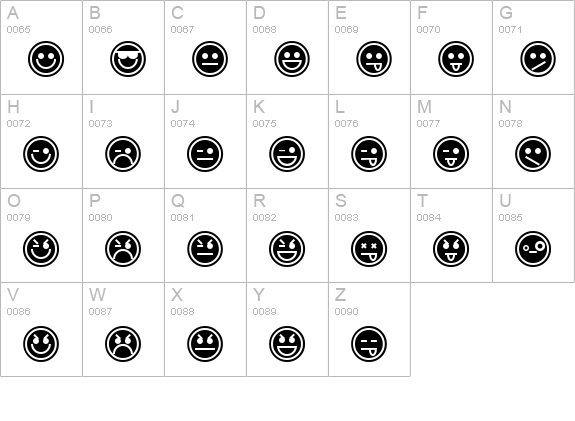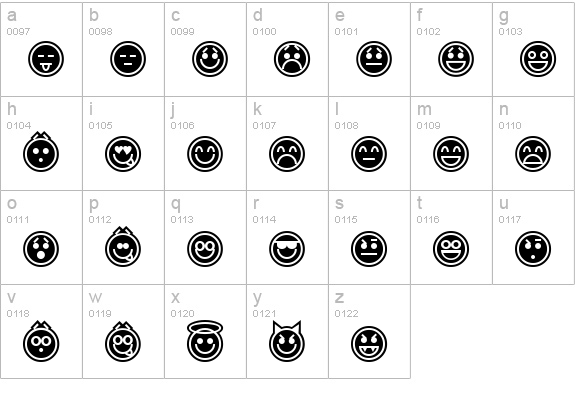
Emoticons Outline Font Details
Emoticons Outline font is a delightful and playful typeface that brings a touch of fun to your designs. This unique font features a wide range of emoticons and symbols in a charming outline style, perfect for adding a whimsical touch to your projects. Whether you're creating invitations, posters, or social media graphics, Emoticons Outline font is sure to make your text stand out. Best of all, Emoticons Outline font is completely free to download at FontsMarket.com. Simply visit the website and start using this fun and versatile font in your designs today. Add a dash of personality and creativity to your work with Emoticons Outline font - the perfect choice for anyone looking to add a touch of fun to their projects.